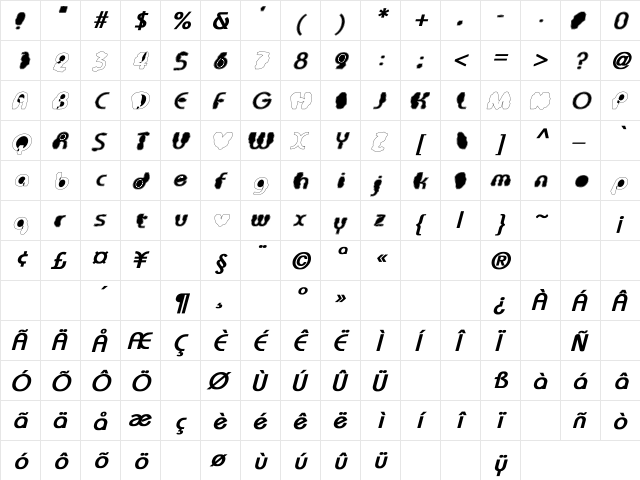
The Black Hole Bold Regular
Design Context for The Black Hole Bold Typeface
The Black Hole Bold is a composed and adaptable typeface that performs quietly and consistently across a wide range of design contexts. The heavy weight commands attention and anchors typographic hierarchies.